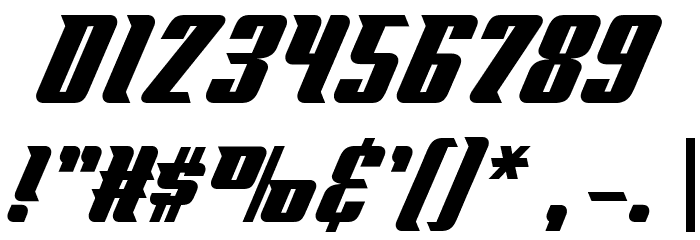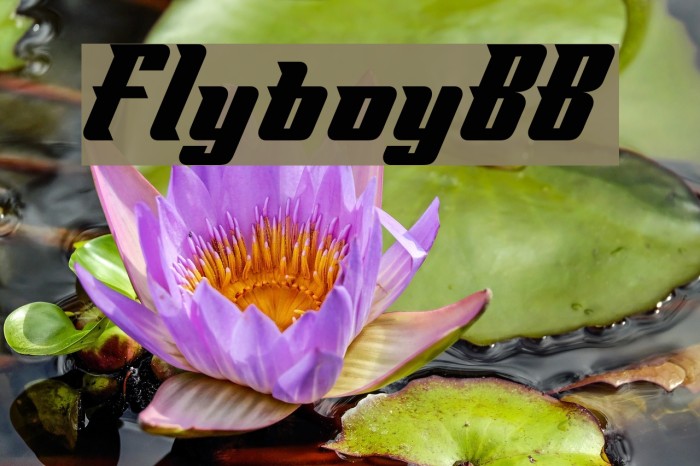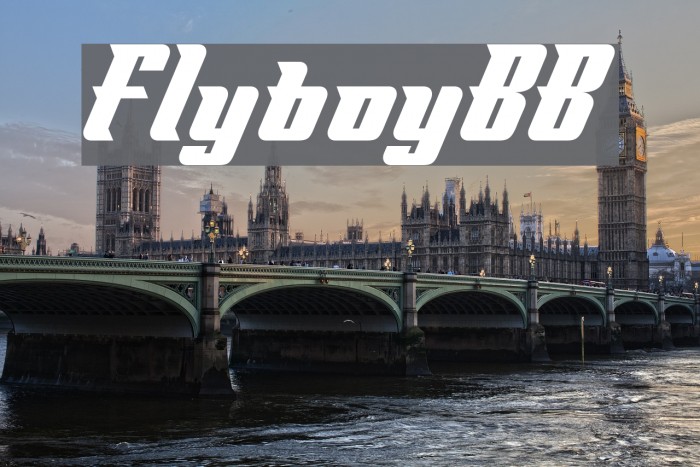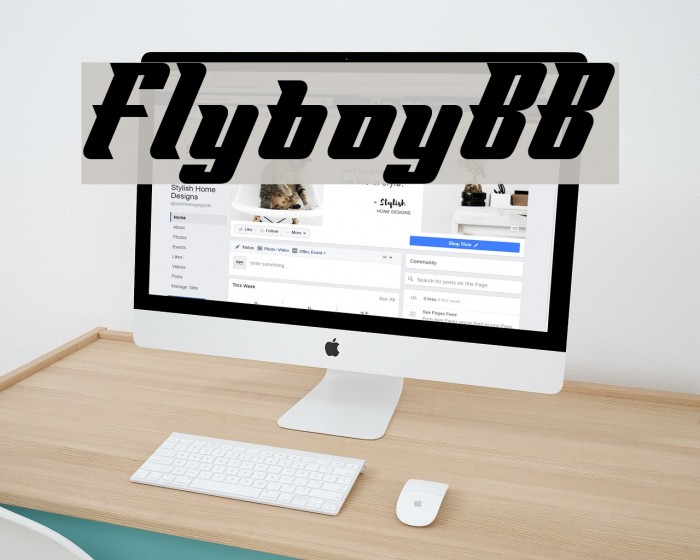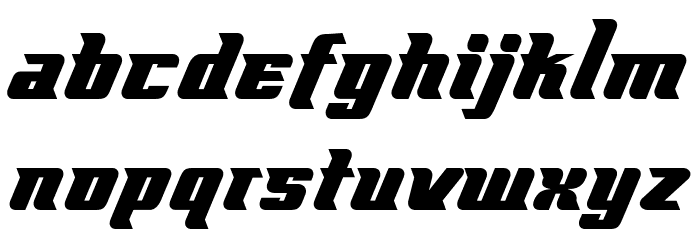
FlyboyBB Font
FlyboyBB Description
This font features a bold, dynamic style with a strong emphasis on angular lines and sharp edges. The characters are slanted, giving a sense of motion and energy, reminiscent of vintage racing or aviation themes. The uppercase letters are particularly striking, with a blocky, geometric form that commands attention. The lowercase letters maintain the same boldness, ensuring consistency across the typeface. Numbers and special characters are equally robust, making this font versatile for various applications. Its unique style makes it ideal for projects that require a bold, impactful statement.
A bold, angular font with a dynamic, slanted style from Uncategorized fonts.
- Proposed Projects: Ideal for branding, posters, sports team logos, and any design needing a strong, energetic presence.
- Overall Style: Vintage, Dynamic